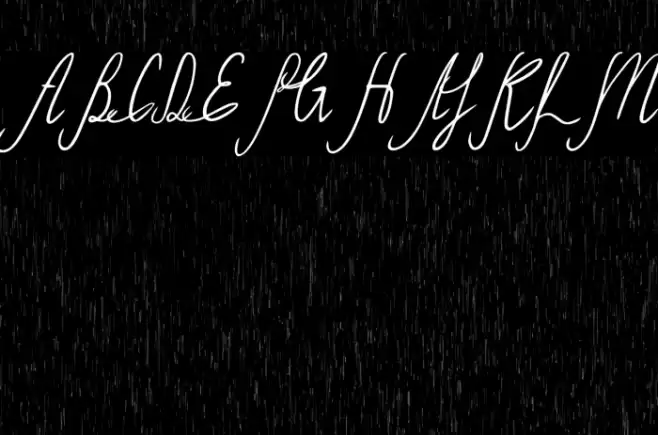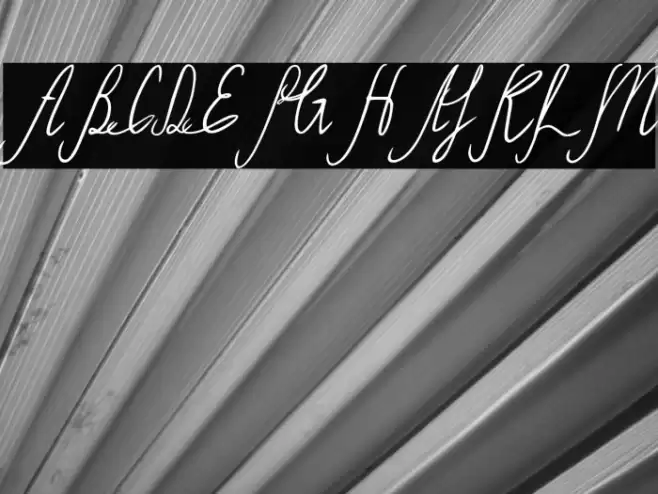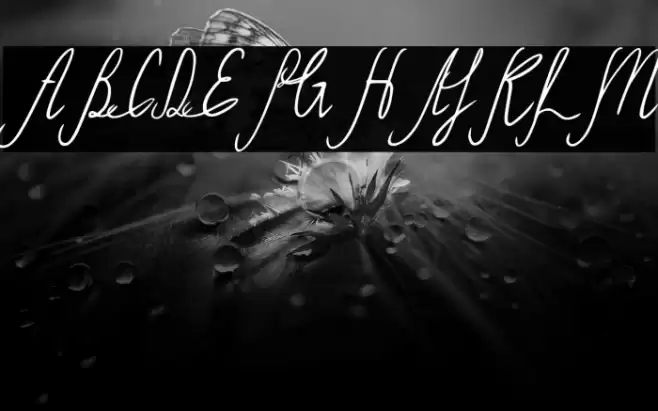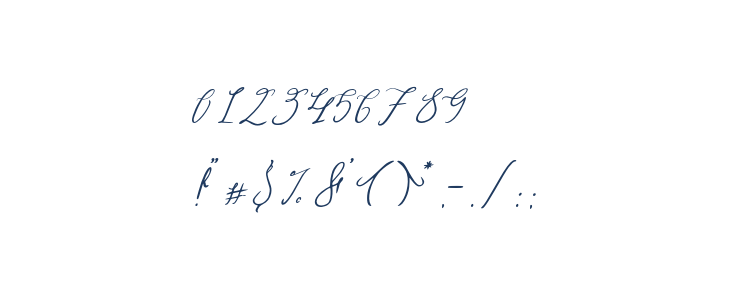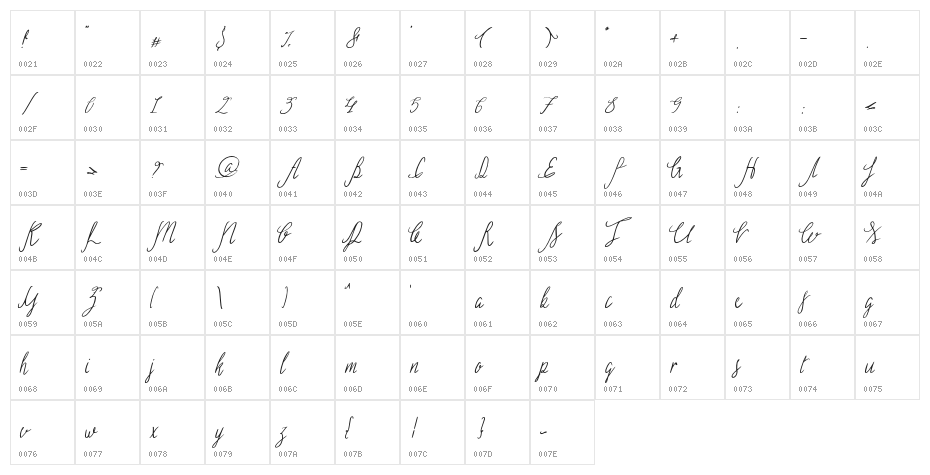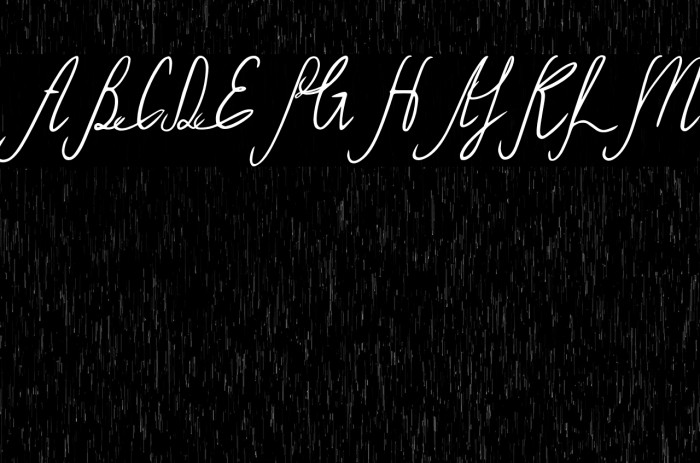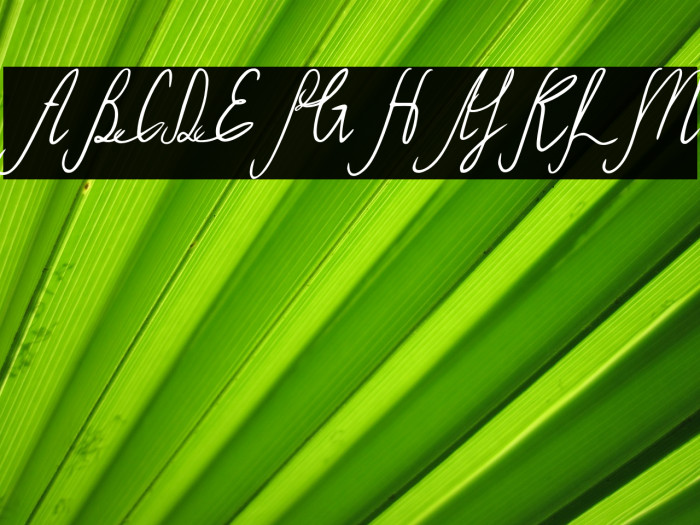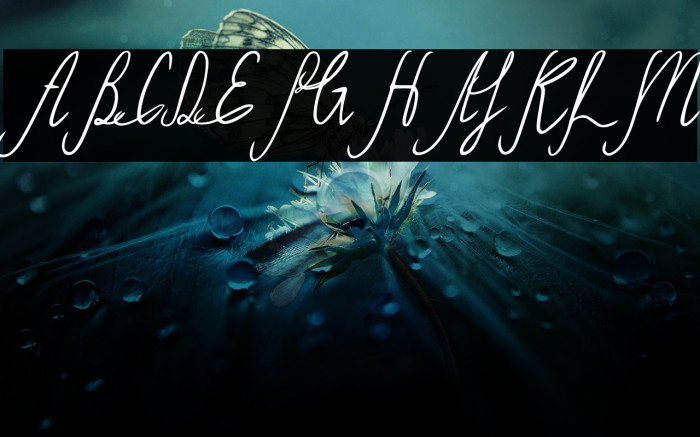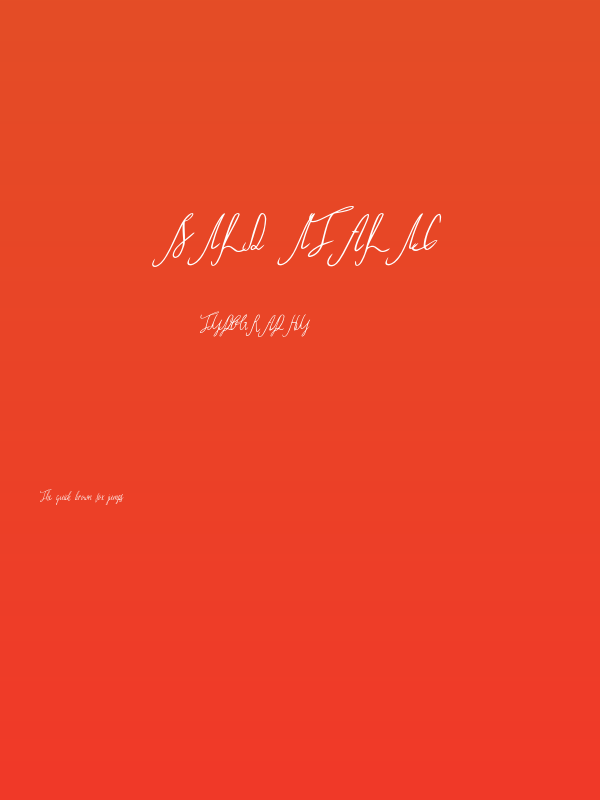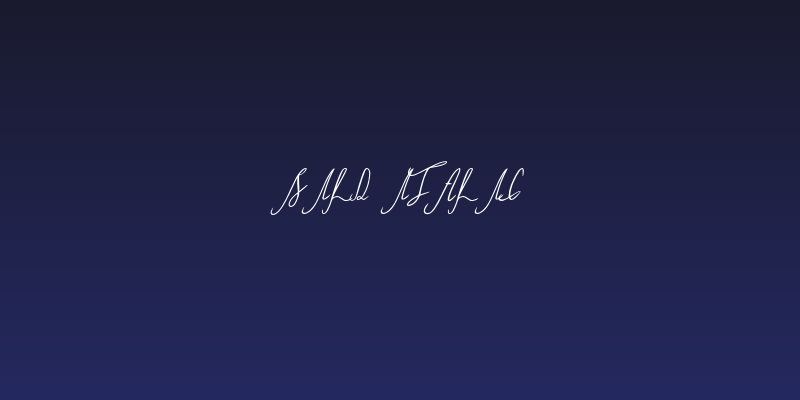
Sild Italic Font
Sild Italic Description
This elegant script font features a fluid and graceful design, characterized by its flowing, cursive strokes and delicate curves. The uppercase letters exhibit a sophisticated flair with elongated ascenders and descenders, while the lowercase letters maintain a consistent, smooth flow that enhances readability. The numerals and special characters are crafted with the same attention to detail, ensuring a cohesive appearance across all glyphs. This font exudes a sense of refinement and elegance, making it ideal for projects that require a touch of sophistication.
A graceful and elegant script font with fluid, cursive strokes from Uncategorized fonts.
- Proposed Projects: Ideal for wedding invitations, elegant branding, personal stationery, and high-end product packaging.
- Overall Style: Elegant
- Use Case: Logos, Invitations, Branding